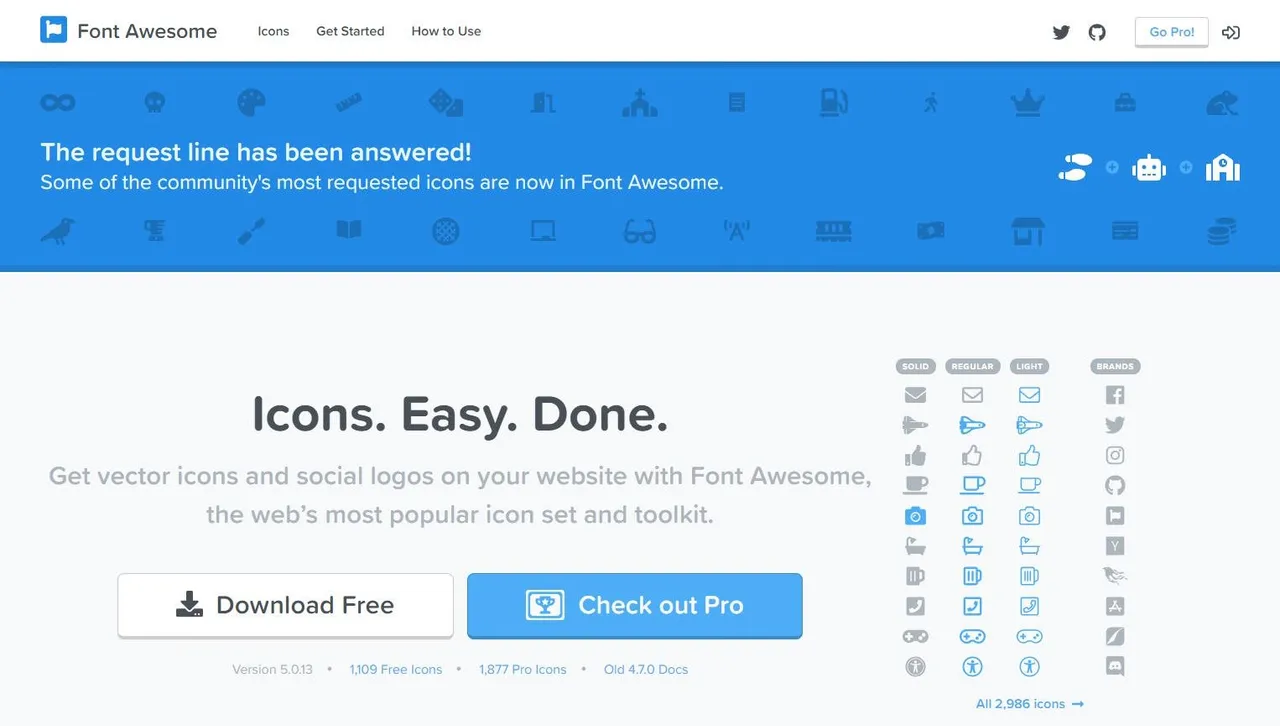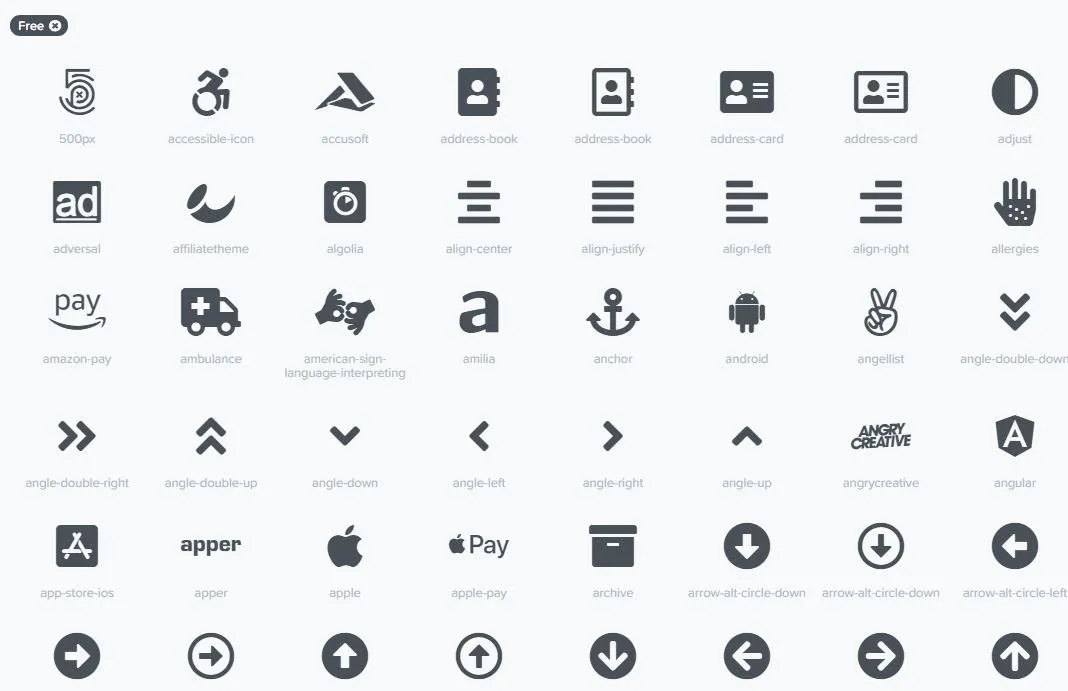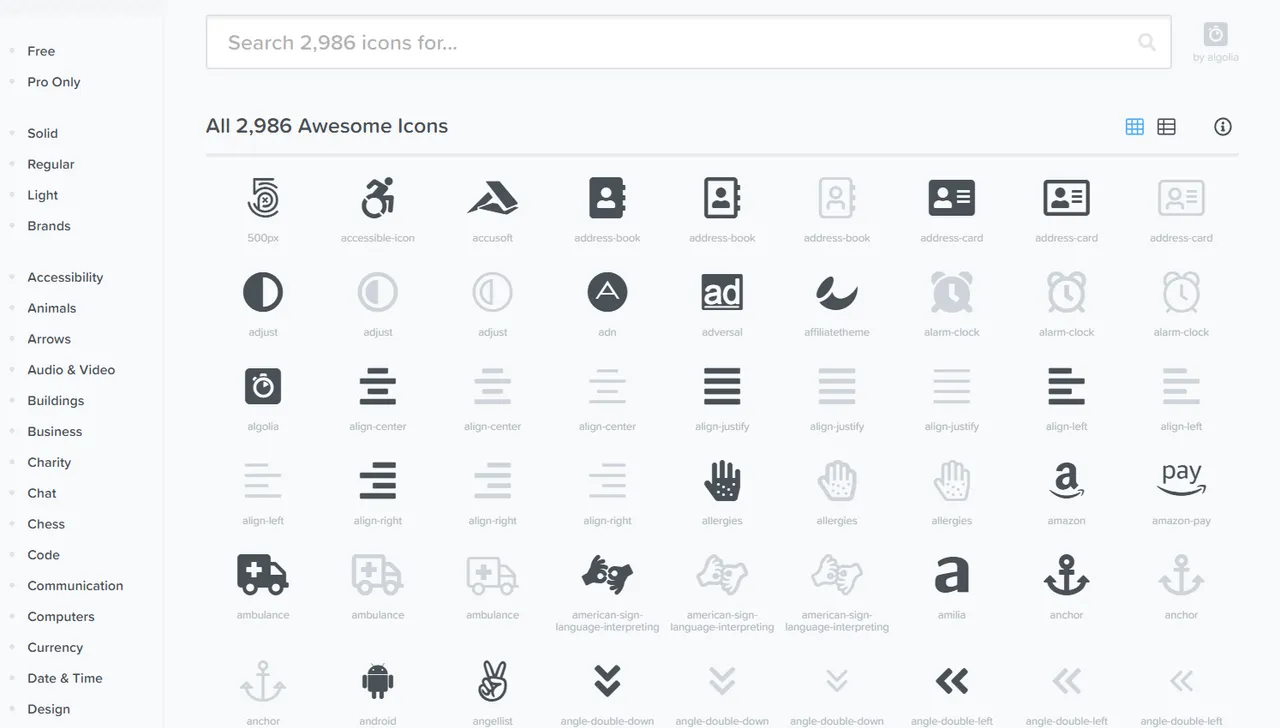
Font Awesome
Icons. Easy. Done
When surfing around the web I`m quite sure that almost everybody has seen the implemented icons in different web pages. Font Awesome is, like the name indicates, an awesome Open source project making it available for everybody and implement it easily into each projects.
1. What is is for? Why Icons and why Font Awesome?
Icons, Logos, etc are an fast and direct way to communicate without knowing the language in behind. You can compress the meaning of a category or an action easily with an icon.
The difficulty is that not everybody is an graphic designer and able to create their own icon. On the other side license and ownership about icons makes it difficult to use icons out there.
Font Awesome is solving two issues at ones, at it is not making over 1,109 Free Icons in a a lot of different categories available, it also solves the issue that you have to bind the icons as image into your web projects, as it is going to be used as a Font. That is really great (and also saving a lot of bandwidth~!)
Font awesome is now in the 5th version and there are different ways to implement it into your projects.
3. What is the difference between Free vs Pro?
4. But there is no Steem Logo~!
Yes, in the original Font Awesome library there is no Steem logo included. But the great thing about Open Source is that it is Open Source :)
5.Conclusion
If you need some icons to explain or compress your meanings Font Awesome is a great place to start, as they can be used either private or commercial and with over 1,000 Icons you can find almost every normal icon you can think of. The icon numbers are also growing steadily and getting updates in regular base, so it should be bookmarked by every interested content creator.